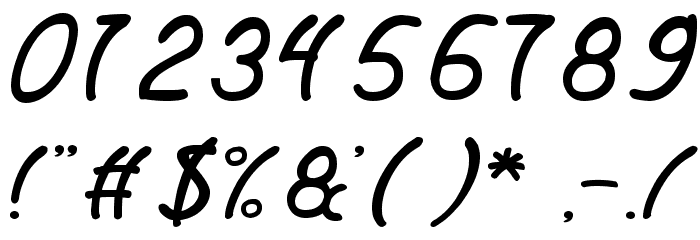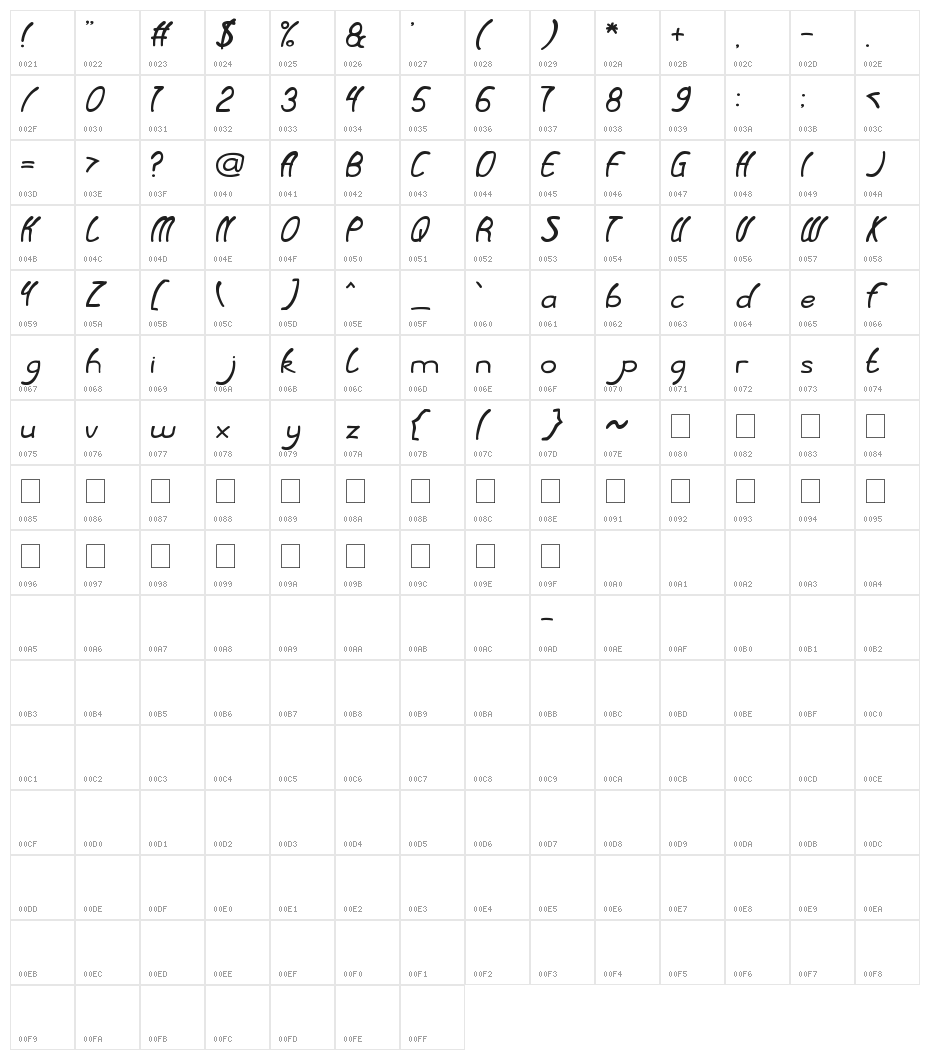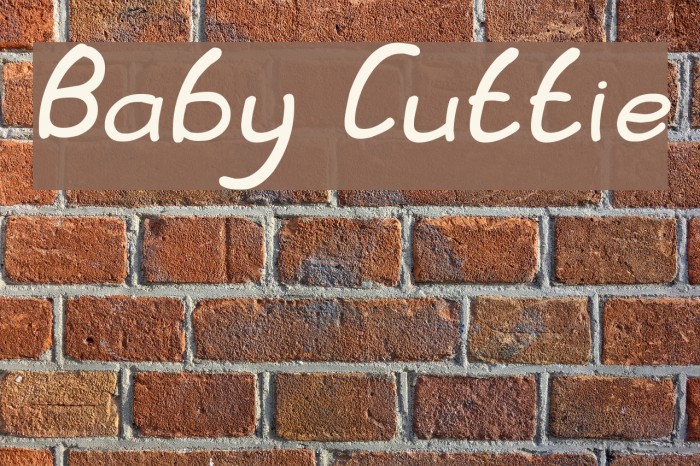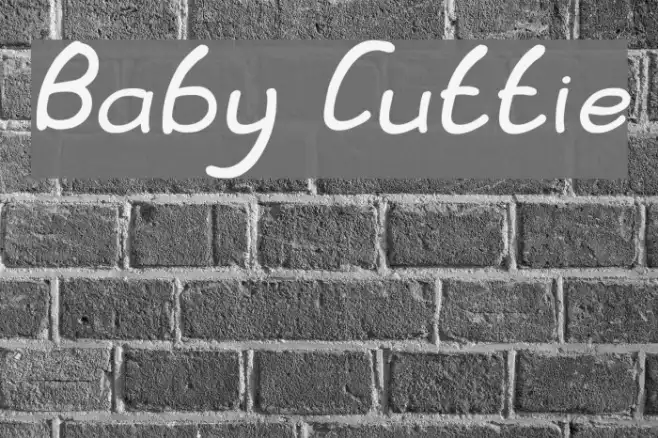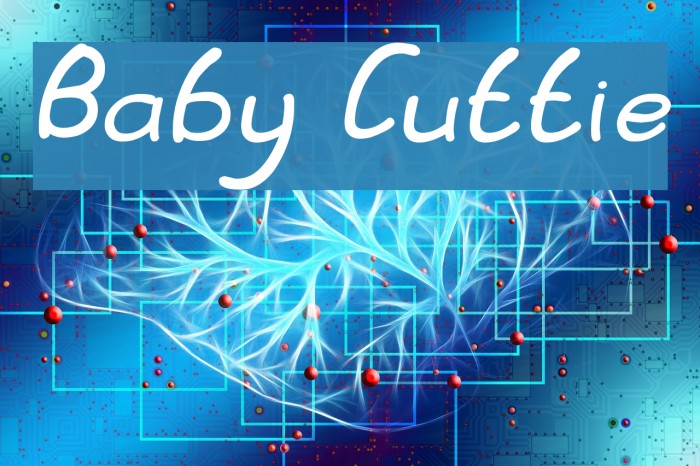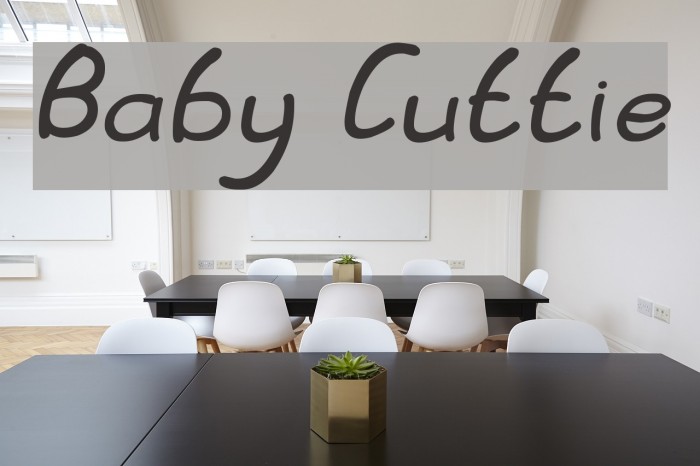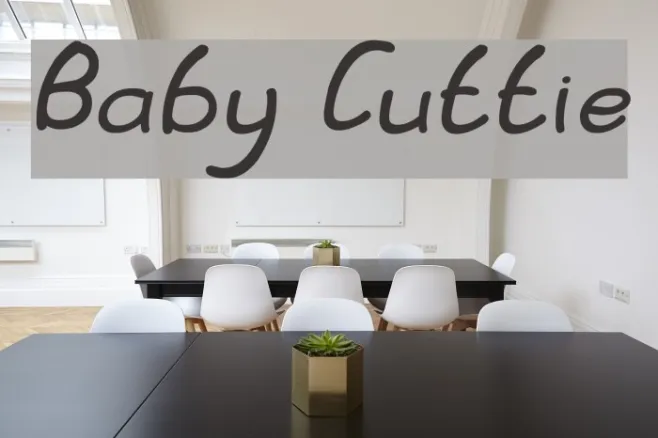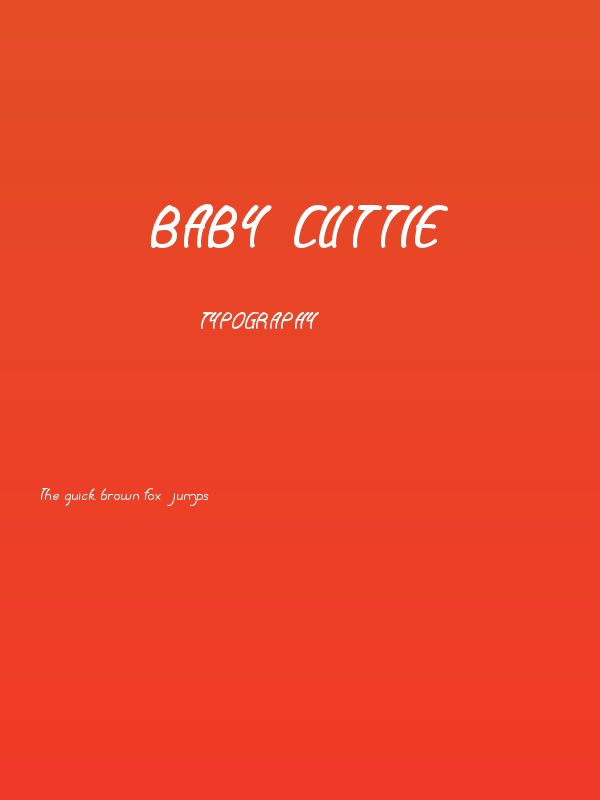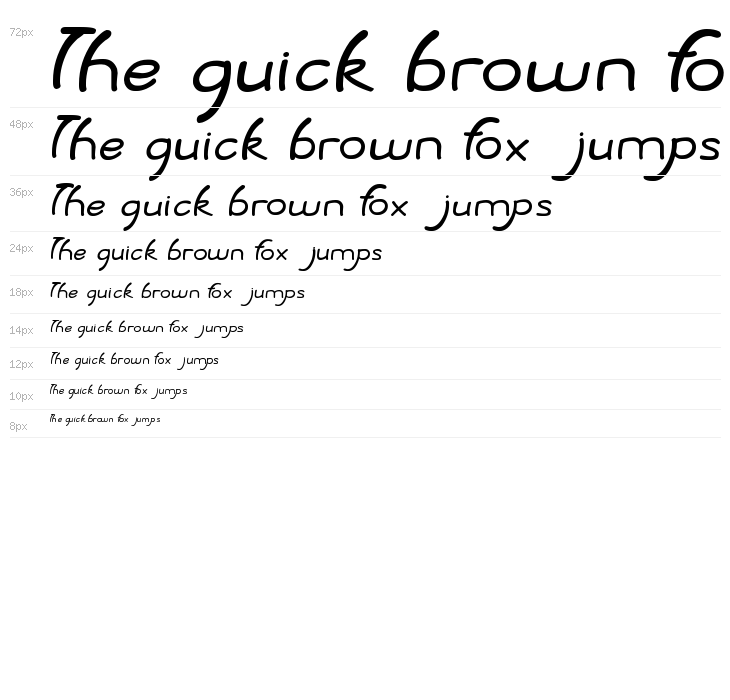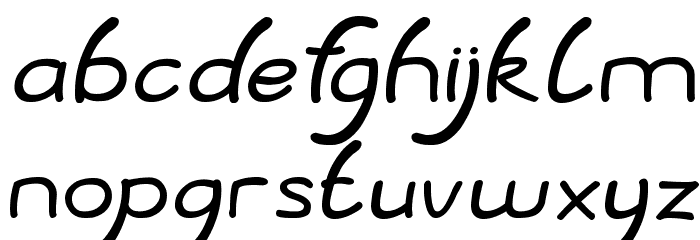
Baby Cuttie Font
Baby Cuttie Description
This font features a playful and whimsical style, characterized by its rounded and smooth letterforms. The strokes are consistent in thickness, giving it a friendly and approachable appearance. The uppercase letters are slightly taller than the lowercase, maintaining a uniform width throughout. The numerals and special characters complement the alphabet with similar curves and loops, enhancing the overall cohesive look. This font's design is both casual and inviting, making it suitable for a variety of creative applications.
| Proposed Projects | Ideal for children's books, playful branding, greeting cards, and informal invitations. |